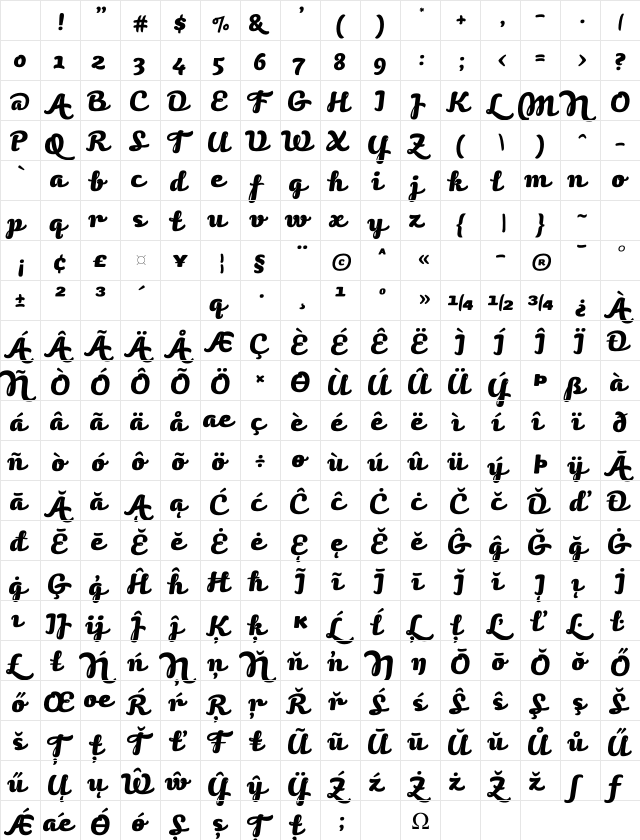
Complete Volupia Regular glyph index. Displaying only characters natively supported by Volupia Regular font.
Volupia is a composed and adaptable typeface that performs quietly and consistently across a wide range of design contexts.